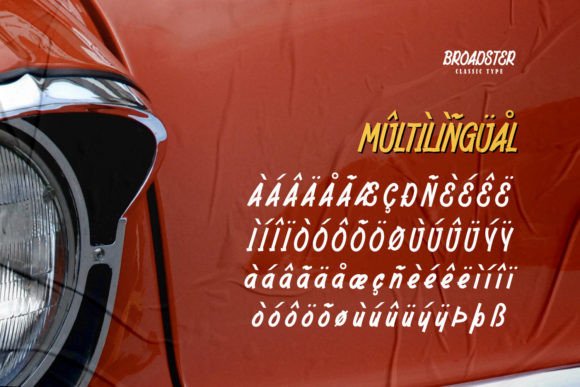
Broadster Font: A Timeless Typeface Inspired by 60s American Advertising
In the world of typography, few fonts have managed to capture the essence of a bygone era as effectively as Broadster. This decorative sans serif typeface is a masterful blend of classic 60s American advertising and automotive visual styles, reimagined for modern use. With its unique blend of formality and expressiveness, Broadster has become a go-to choice for designers seeking to add a touch of vintage flair to their work.
The Inspiration Behind Broadster
Broadster’s design is deeply rooted in the visual aesthetic of 1960s America. During this period, advertising and automotive design were at the forefront of American culture, with bold typography and striking visuals dominating the landscape. The font’s creator drew inspiration from this era, carefully studying the typography and visual styles that defined it.
The result is a typeface that embodies the spirit of classic American advertising, with clean lines, geometric shapes, and a sense of dynamism that evokes the optimism and energy of the 1960s. Whether used in a formal layout, poster, newspaper, or magazine ad, Broadster is sure to turn heads and evoke a sense of nostalgia in those who see it.
Design Characteristics of Broadster
Broadster is a decorative sans serif typeface, characterized by its clean and geometric lines. The font features a range of design elements that make it perfect for a variety of applications, including:
- Geometric shapes: Broadster’s design is based on geometric shapes, giving it a clean and modern feel.
- Clean lines: The font’s lines are clean and unadorned, making it perfect for use in a variety of contexts.
- Dynamic curves: Broadster’s curves are smooth and dynamic, adding a touch of elegance to the font.
These design characteristics make Broadster a versatile typeface that can be used in a range of applications, from formal layouts to more creative projects.
Perfect for Formal and Vintage Projects
Broadster is a typeface that is perfectly suited to formal projects, such as:
- Poster design: Broadster’s bold and eye-catching design makes it perfect for posters and other large-format prints.
- Newspaper and magazine ads: The font’s clean lines and geometric shapes make it easy to read, even at small sizes.
- Vintage product branding: Broadster’s retro vibe makes it a great choice for brands looking to evoke a sense of nostalgia and classic style.
In addition to these applications, Broadster is also well-suited to a range of other projects, including:
- Logos and branding: Broadster’s unique design makes it a great choice for logos and other branding materials.
- Packaging design: The font’s bold and eye-catching design makes it perfect for use on packaging and labels.
- Digital media: Broadster can be used in a range of digital media, including websites, social media, and video.
Why Choose Broadster?
There are many reasons why designers might choose Broadster for their projects. Here are just a few:
- Unique design: Broadster’s retro vibe and geometric shapes make it a standout typeface that is sure to grab attention.
- Versatility: The font can be used in a range of applications, from formal layouts to more creative projects.
- Ease of use: Broadster is easy to read, even at small sizes, making it perfect for use in body text and other applications where legibility is key.
Whether you’re looking to add a touch of vintage flair to your project or simply want a typeface that is sure to stand out, Broadster is a great choice.
In conclusion, Broadster is a decorative sans serif typeface that is perfect for designers looking to add a touch of classic style to their work. With its unique blend of formality and expressiveness, Broadster is sure to turn heads and evoke a sense of nostalgia in those who see it.